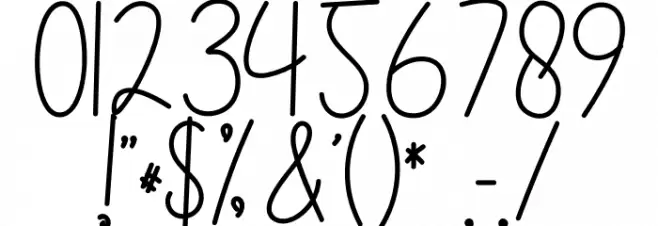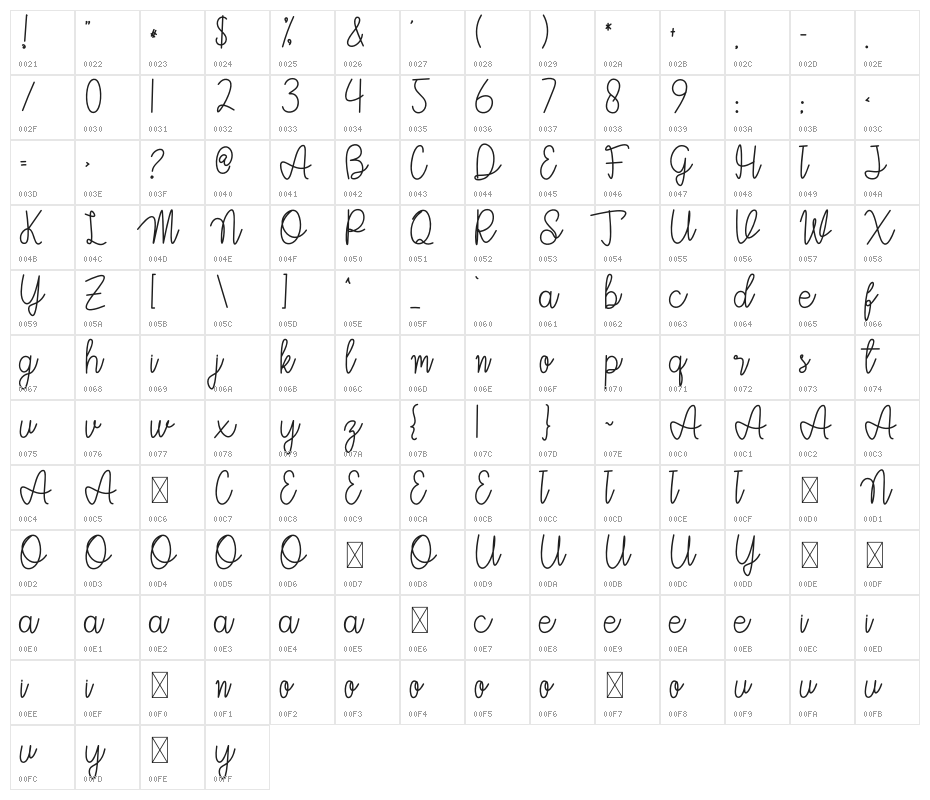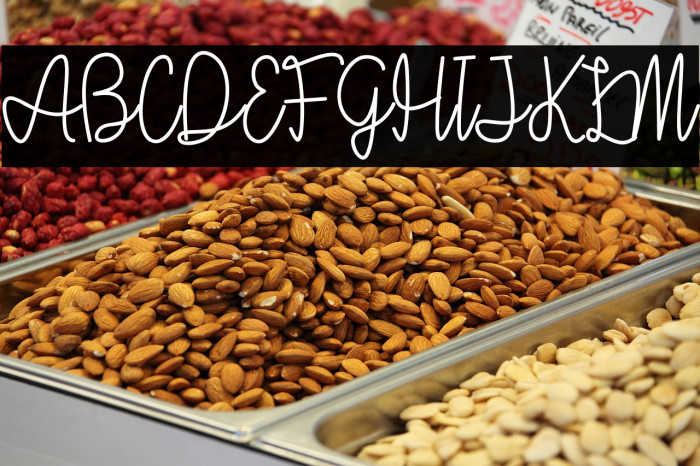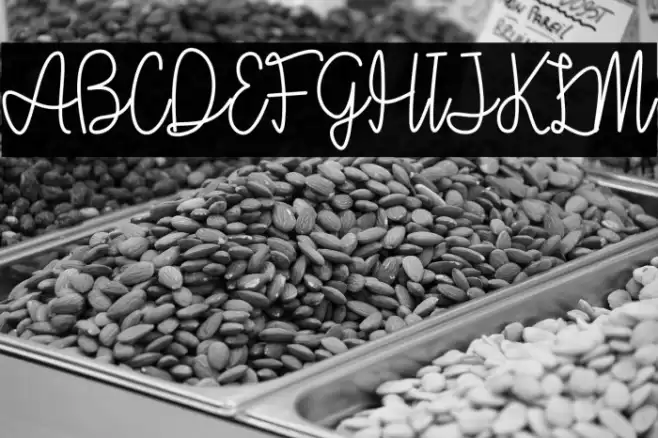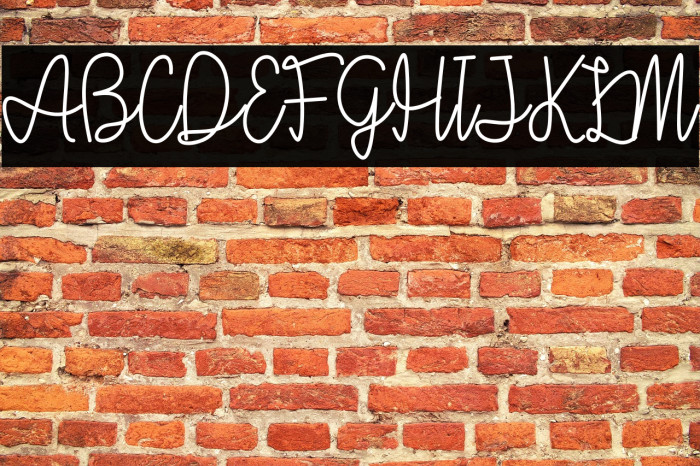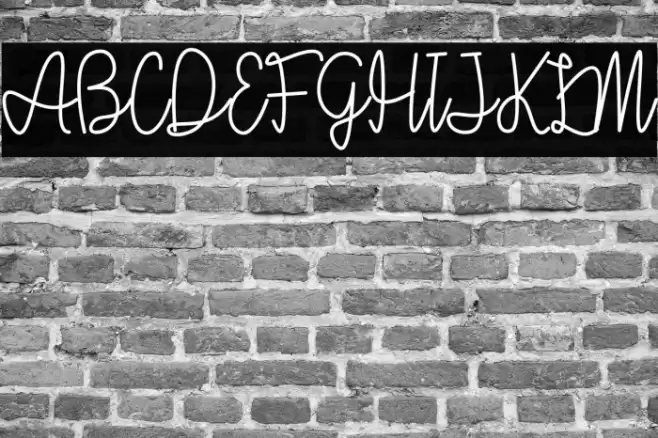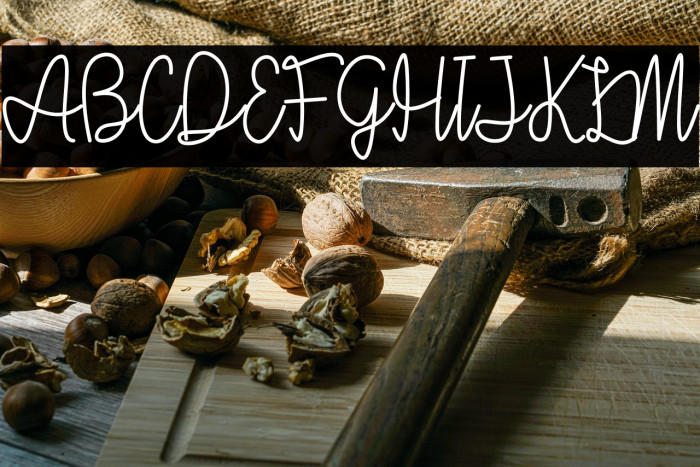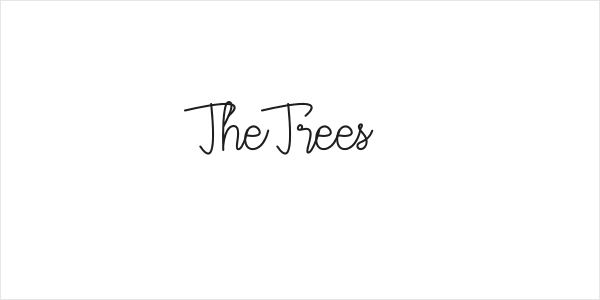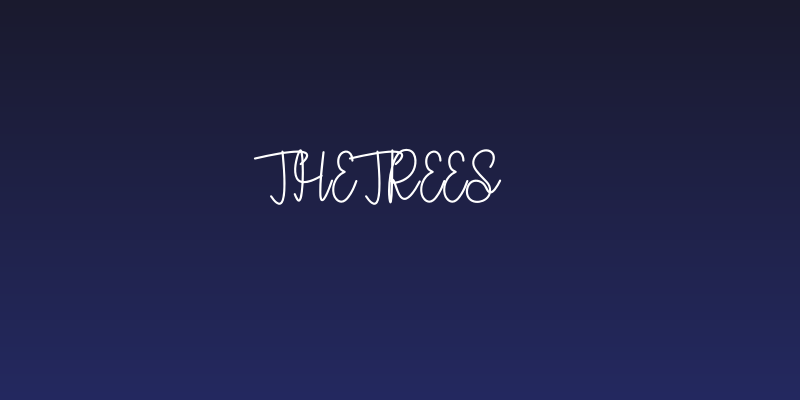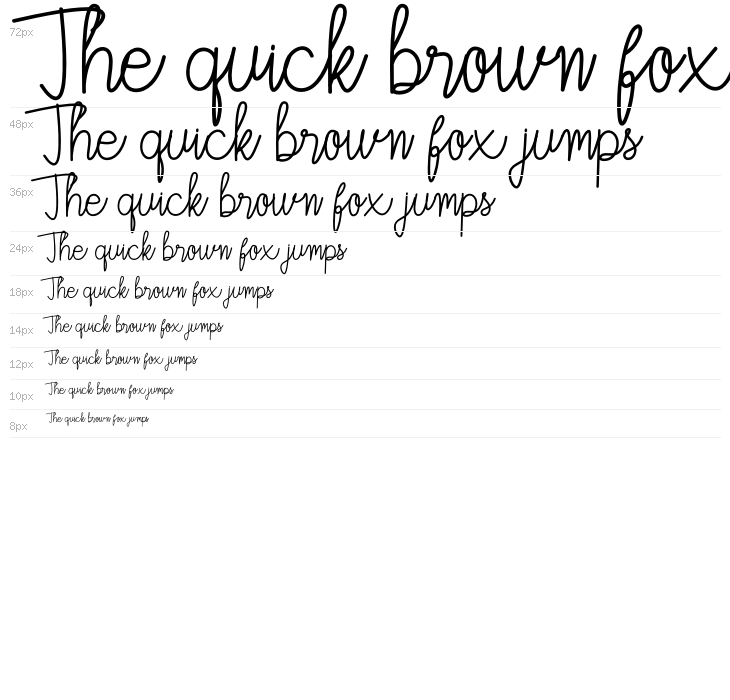
The Trees Font
The Trees Description
This font features a playful and flowing script style, characterized by its connected letters and smooth curves. The uppercase letters exhibit a whimsical flair, with loops and swirls that add a sense of movement and elegance. The lowercase letters maintain a consistent flow, enhancing readability while retaining a hand-drawn aesthetic. Numbers and special characters are designed to match the overall style, ensuring a cohesive look across all text elements. This font exudes a casual yet sophisticated vibe, making it suitable for a variety of creative projects.
| Use Case | Logos, Invitations, Social Media |
| Proposed Projects | Ideal for wedding invitations, greeting cards, branding, and social media graphics. |